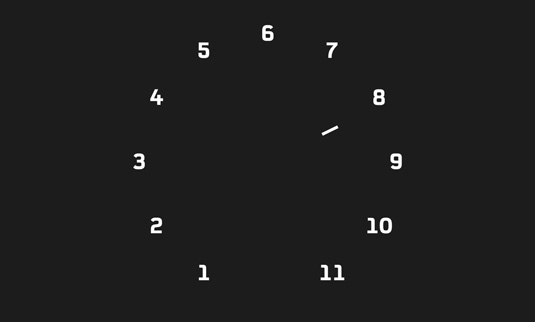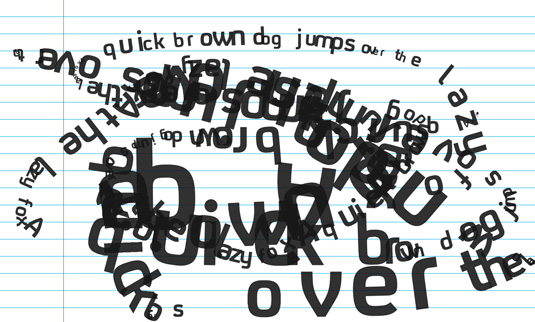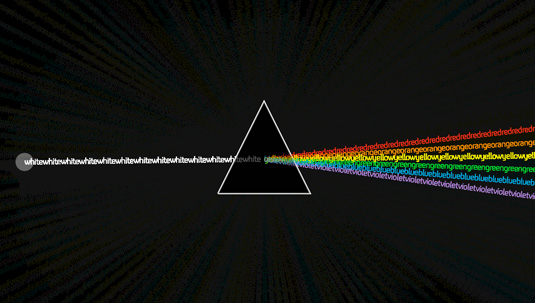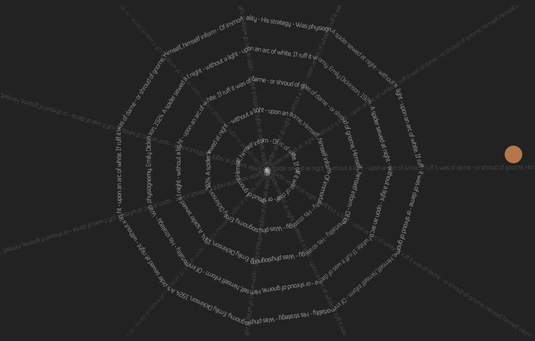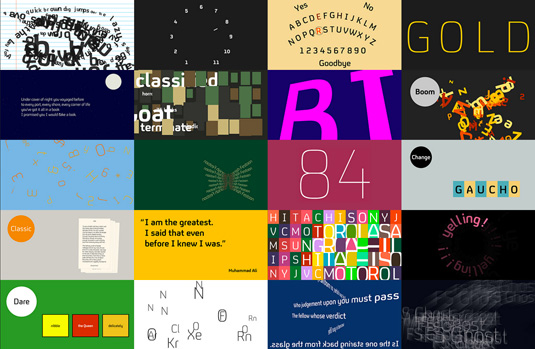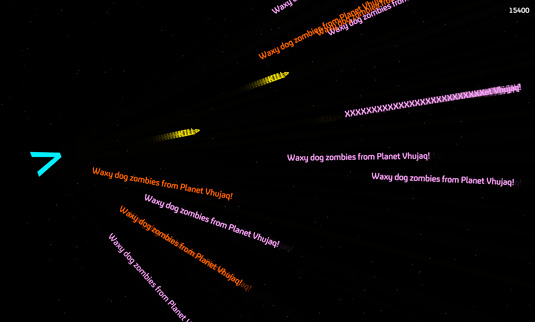
Font foundry creates a typeface with no name
Fontsmith demonstrates its latest flexible typeface, FS Untitled, with several brilliant interactive 'games'.
Usually when a creative project remains unnamed it's beacuse the artwork in question isn't finished or up to scratch. However the latest addition to Fontsmith's library of iconic web fonts is such a flexible and experimental design the boutique type foundry couldn't pick a name, so instead they settled on the deliberately vague FS Untitled.
Adapted from the iconic typeface Fontsmith created for Channel 4 back in 2005, FS Untitled is an updated, pixel-friendly design which has been upgraded for a wider audience.
Building on what made the original font so popular, namely its cartoonish squidgy curves, and almost-flat horizontals and verticals, FS Untitled has been digitally developed into an array of 12 weights that are intended to meet every on-screen need.
"It's a digital-first world," says Fontsmith founder Jason Smith. "And I wanted to make something that was really functional for brands. I also wanted to create something that stylistically was open to its use. So a thin weight, large, gives a very different feel to the text font in body copy."
The 12 weights all come in pairs, and each one has been designated with a number from 100 (Thin) to 750 (Bold). This is intended to reflect the numbering that web developers use to refer to font weights in CSS code.
To bring this new font to life, Fontsmith worked with designers from The Space Between to create a typography 'digital playgorund'. Presented as an interactive specimen sheet, this hilariously distracting playground shows off the different personalities and applications of FS Untitled.
With users able to create their own graphic moods and share their favourite creations, fonts have never been this much fun.